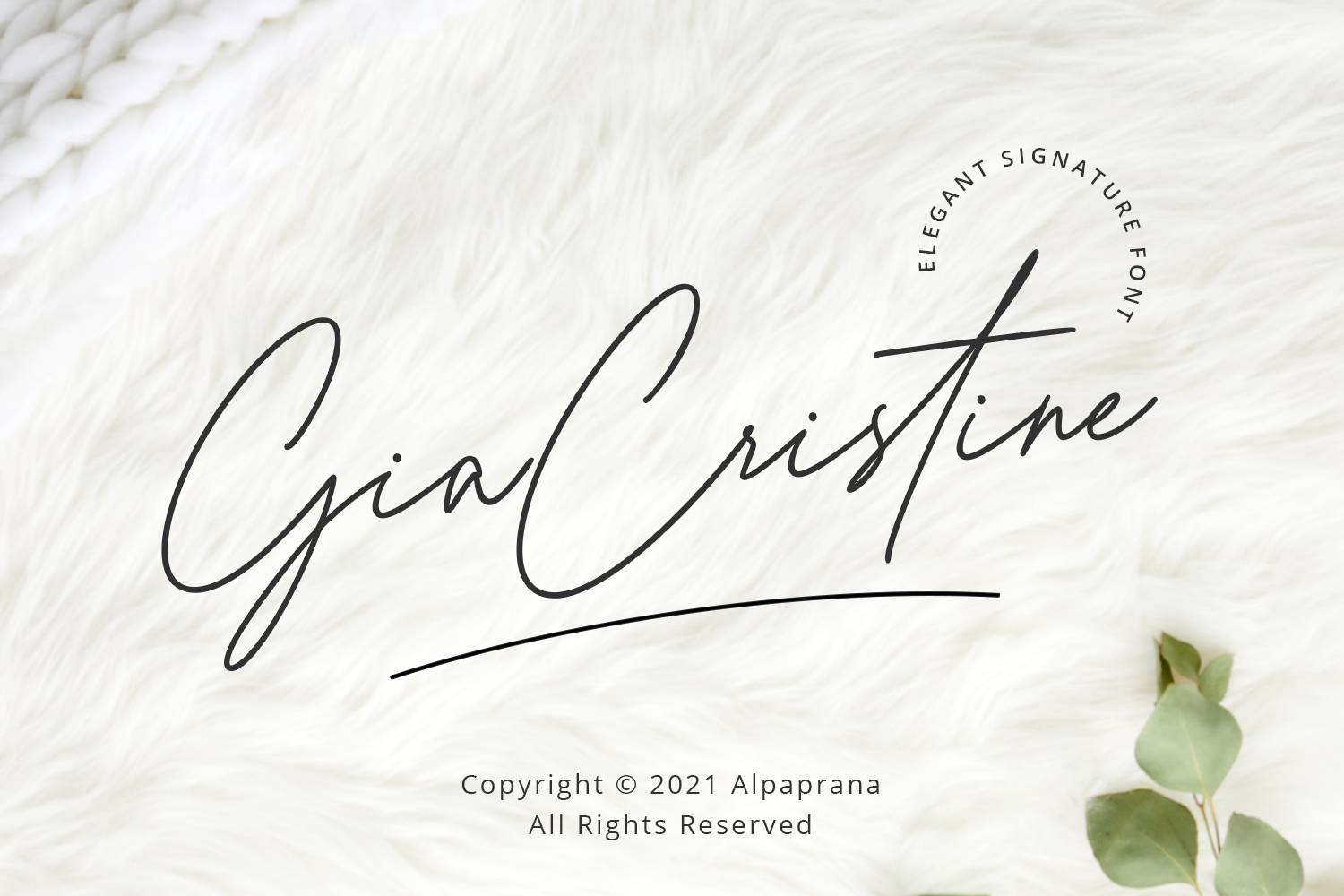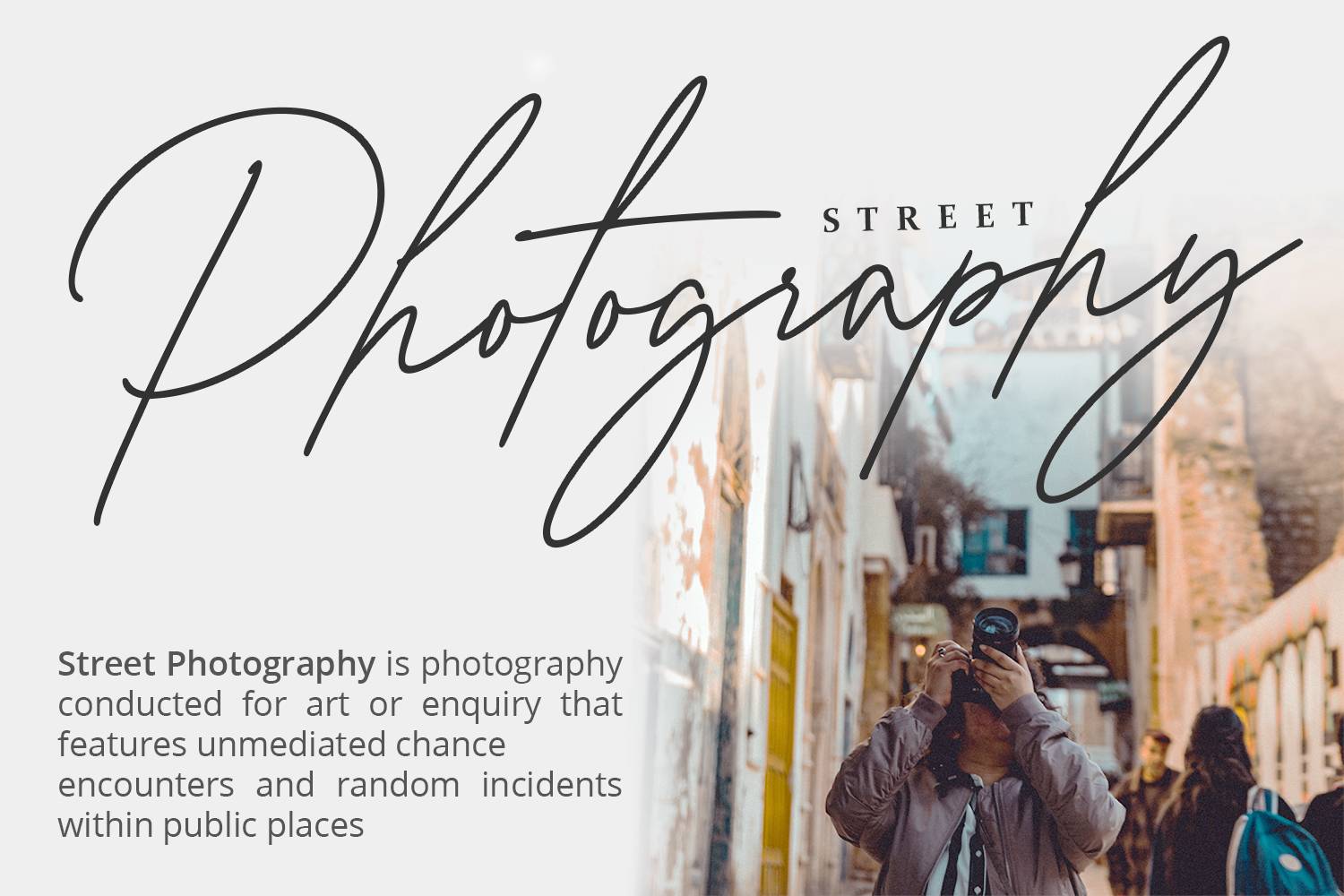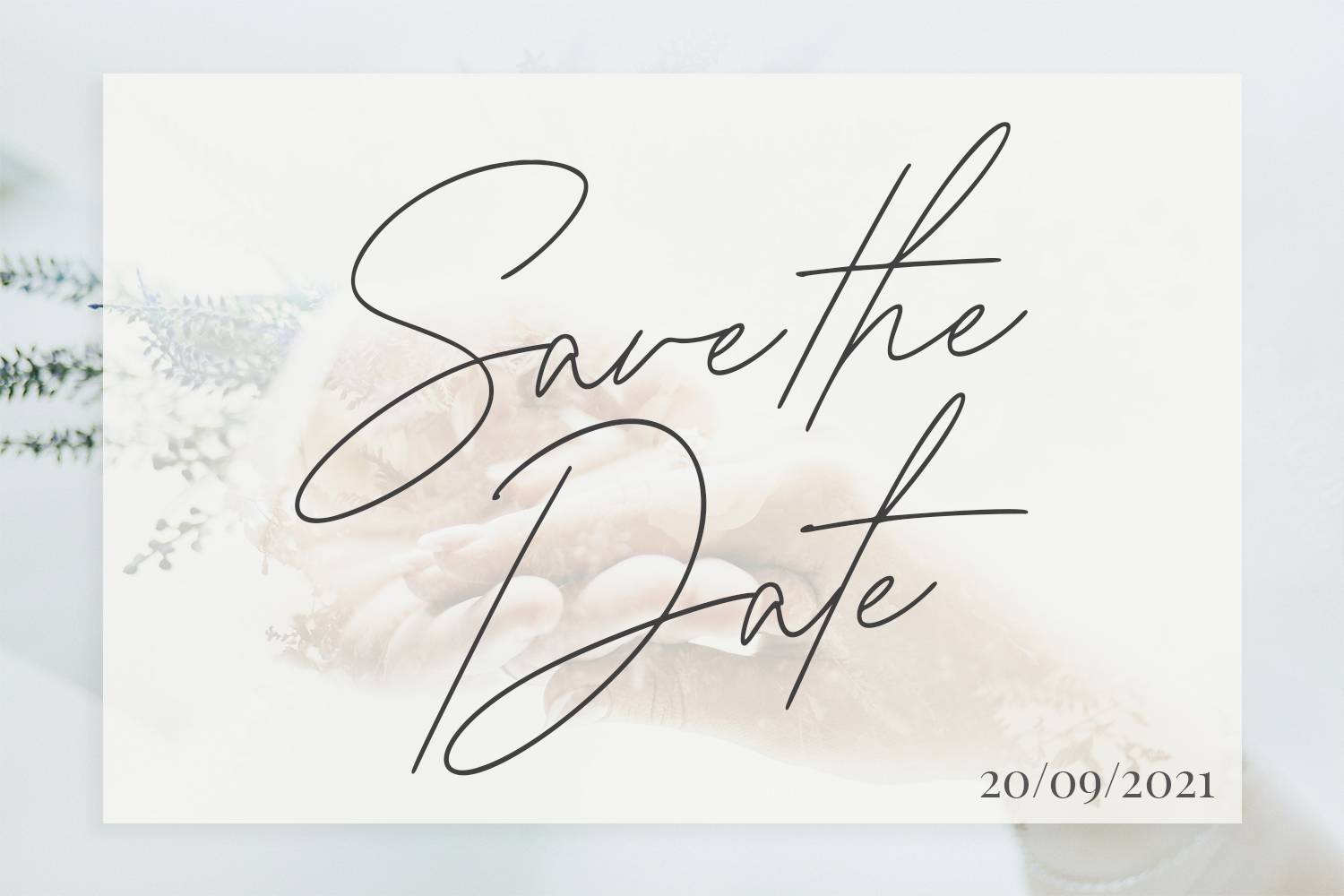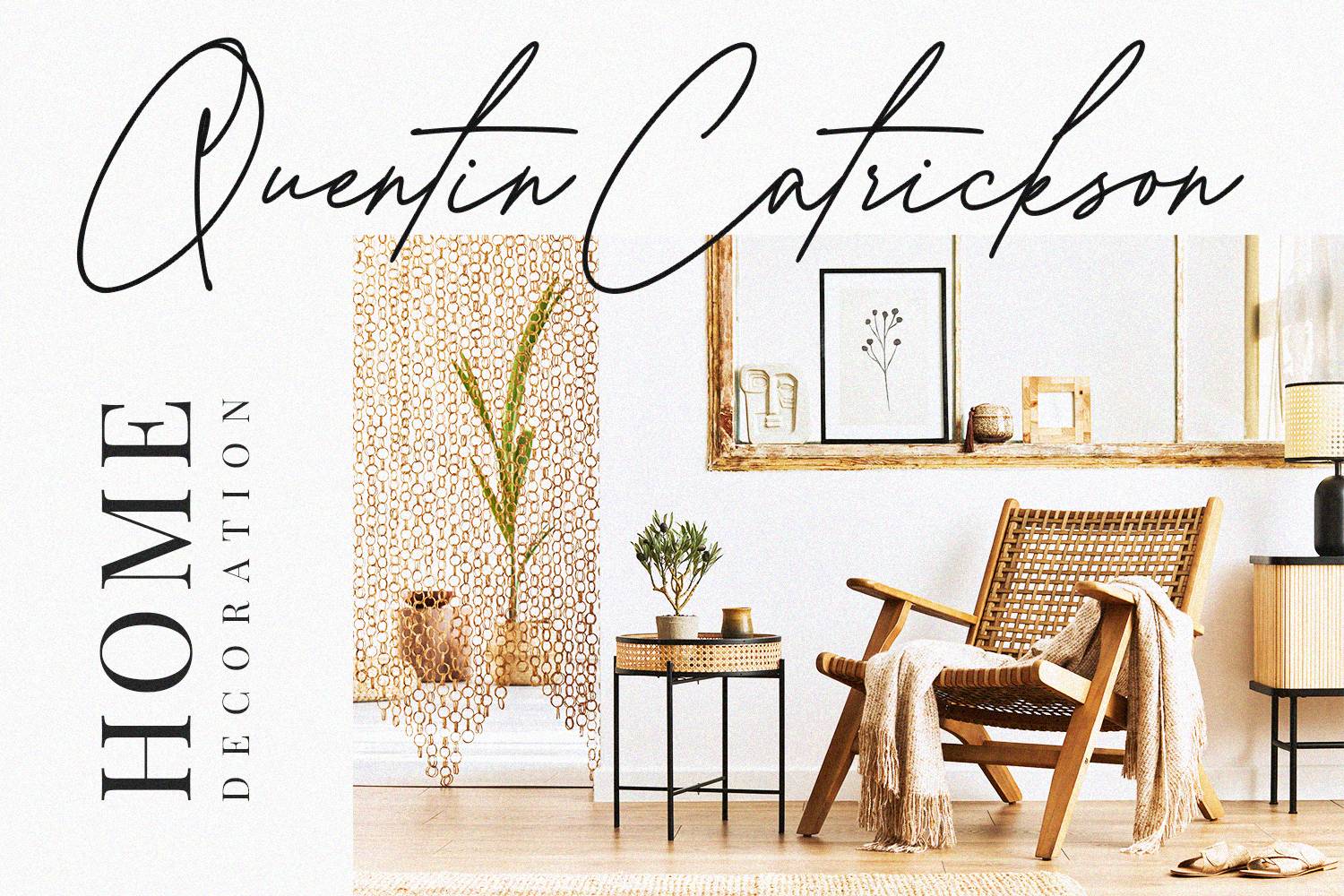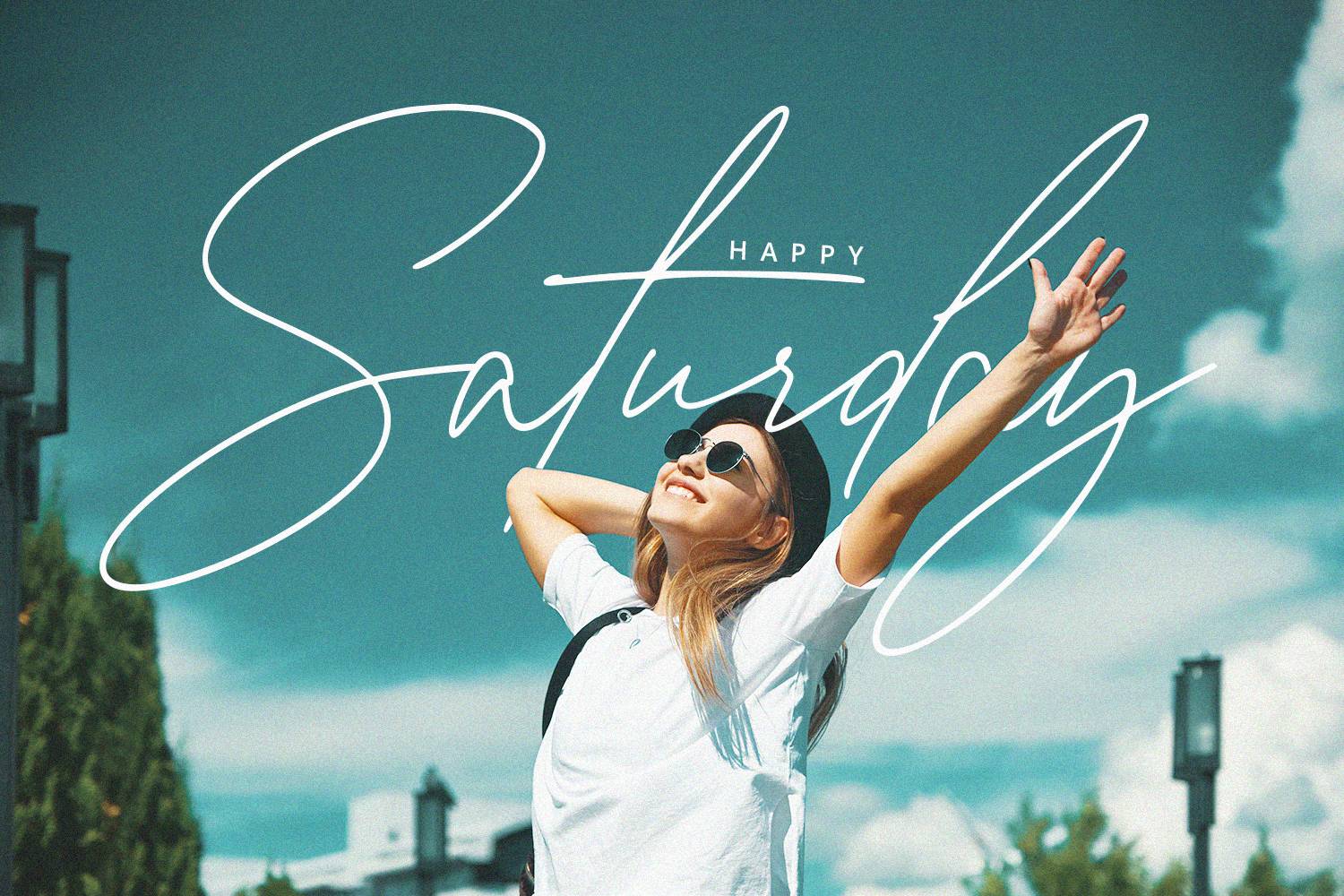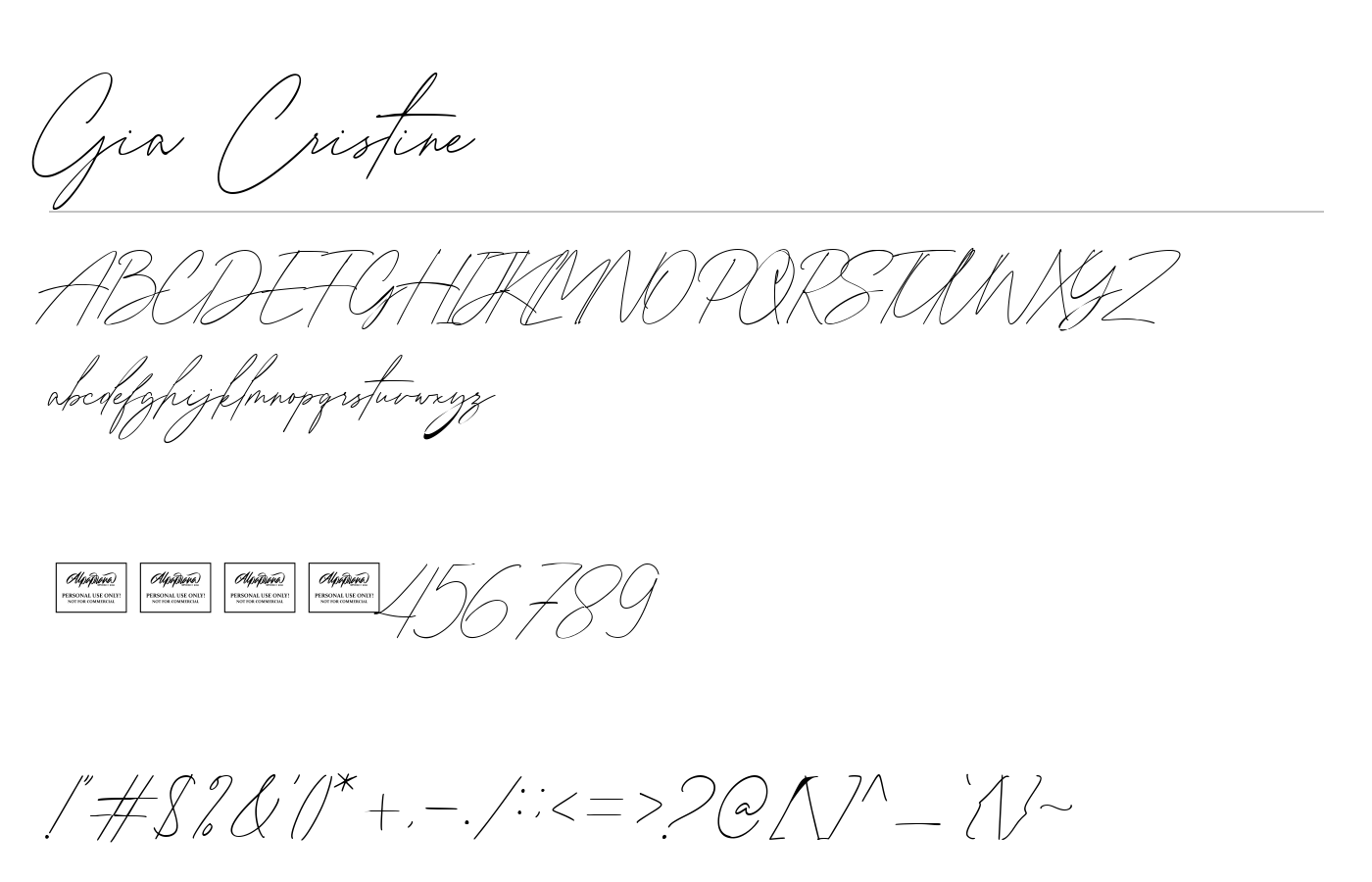
Gia Cristine is a delicate, elegant script font with a handwritten feel characterized by its thin, flowing strokes and graceful loops. Its light weight and natural, airy spacing give it a refined and personal touch, making it perfect for stylish branding, wedding invitations, and luxury editorial designs that seek a sophisticated yet approachable look.
Gia Cristine Font
About Gia Cristine Font